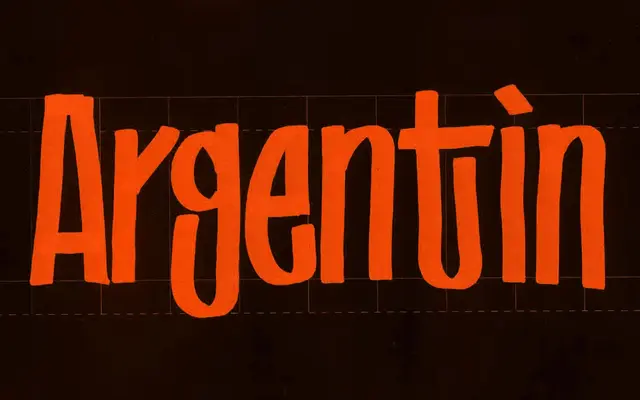
A grotesque sans drawn from Edding marker sketches that sits somewhere between rigid grid typography and calligraphic expression.
Derived from sketches made with an Edding 3300 marker, Valpo blends the structural consistency expected of a grotesque with the warmth of a calligraphic hand. The family spans seven weights from Thin to Black with matching italics, and extends into a Condensed subfamily, totalling 28 styles across both widths. Available as variable fonts with a weight axis, it suits both lead text and display use.
Valpo occupies a position between grotesque and calligraphic, with letterforms derived from Edding marker sketches that retain warmth and personality while adhering to the structural consistency of a grotesque sans.